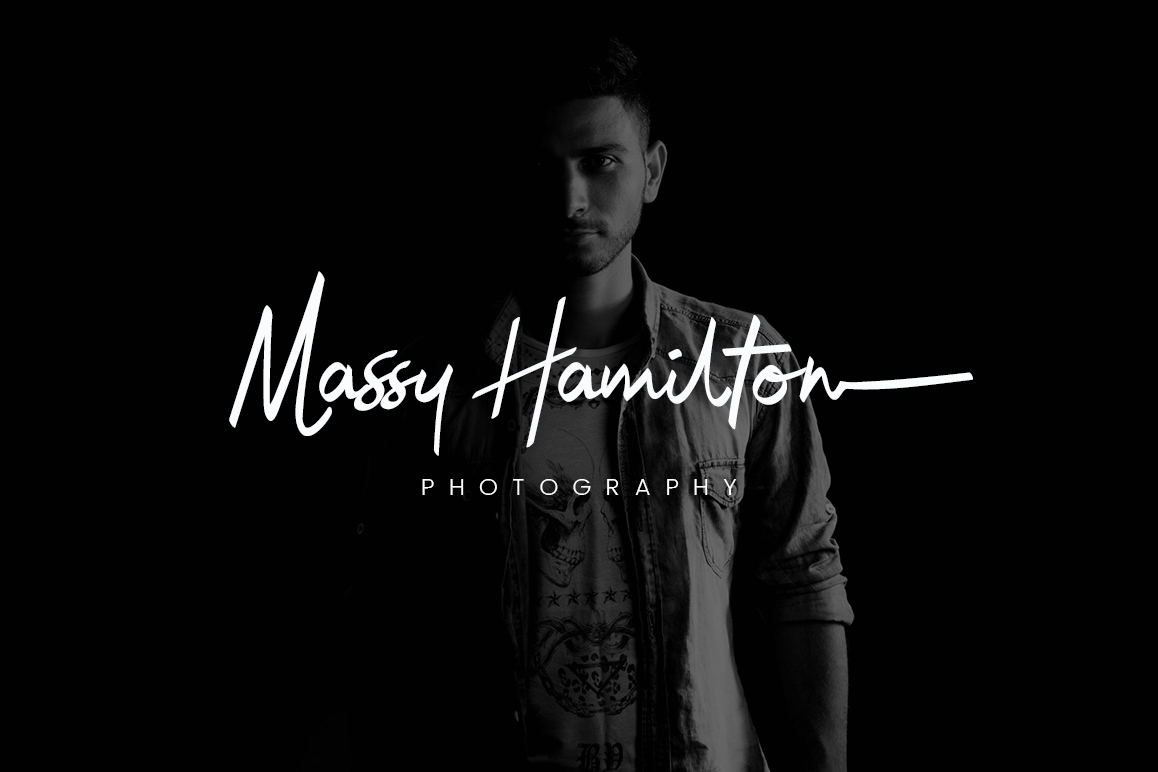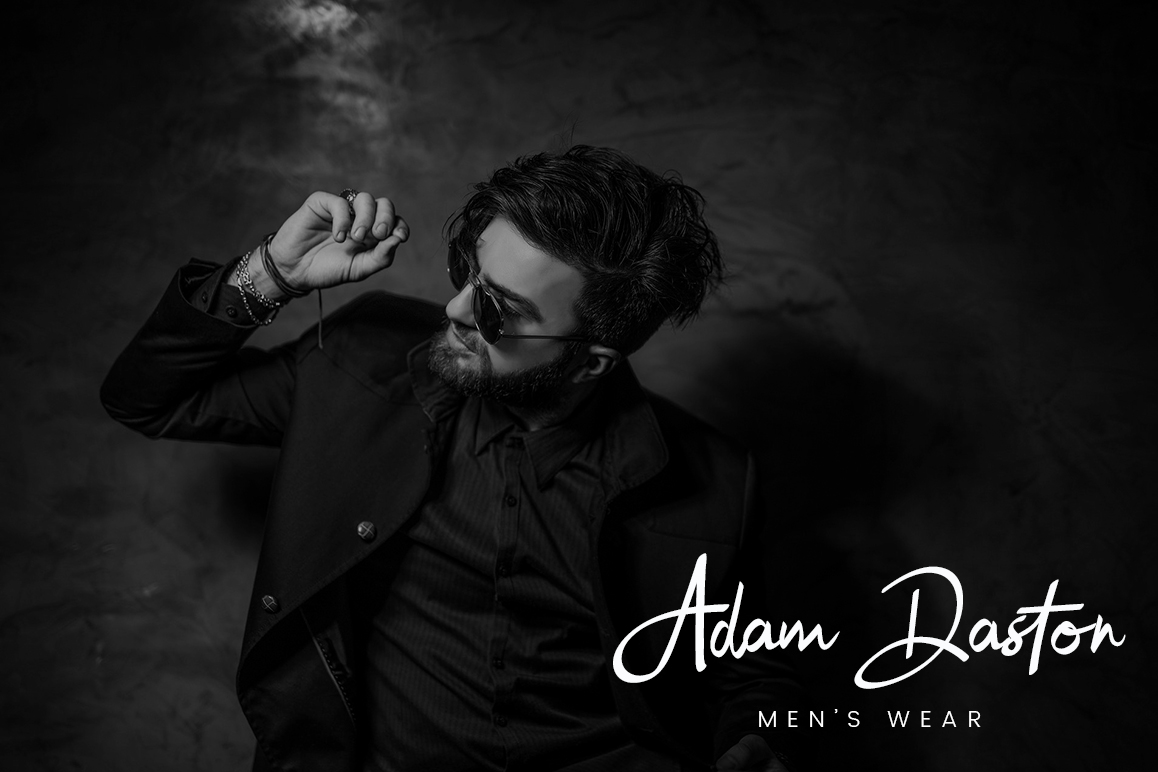
Bulgatti Font
db-ku.com - Script & Handwritten -- Bulgatti is a luxury script font with sophisticated style. This stunning, casually crafted font is inspired by elegance found in luxury brands. Bulgatti is sleek, strong, and a font that exudes confidence.